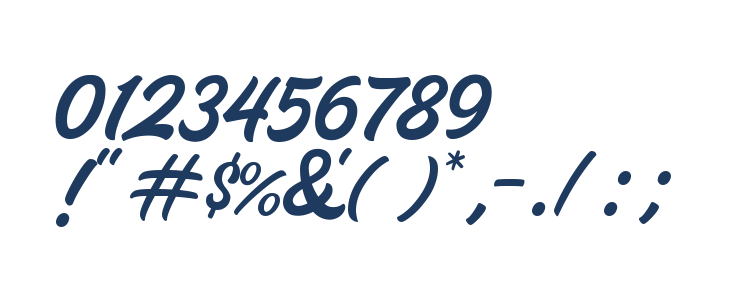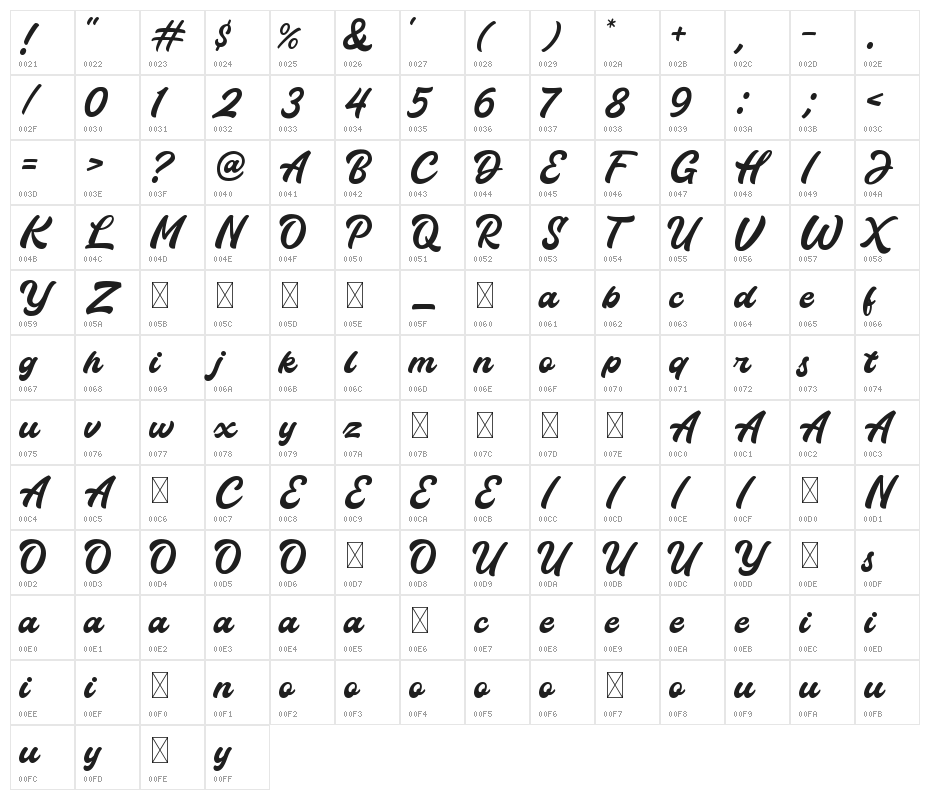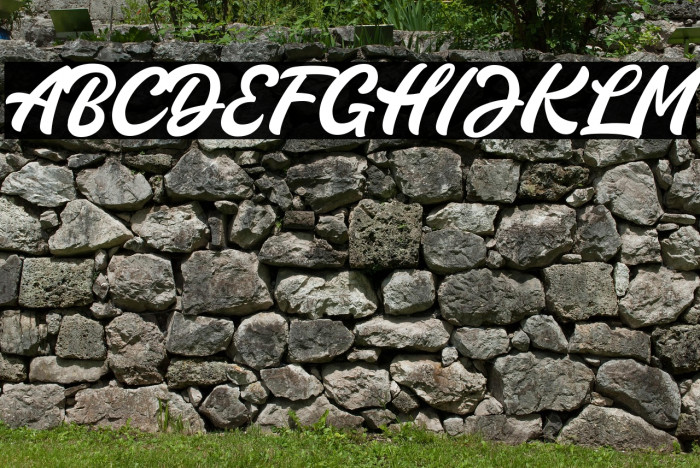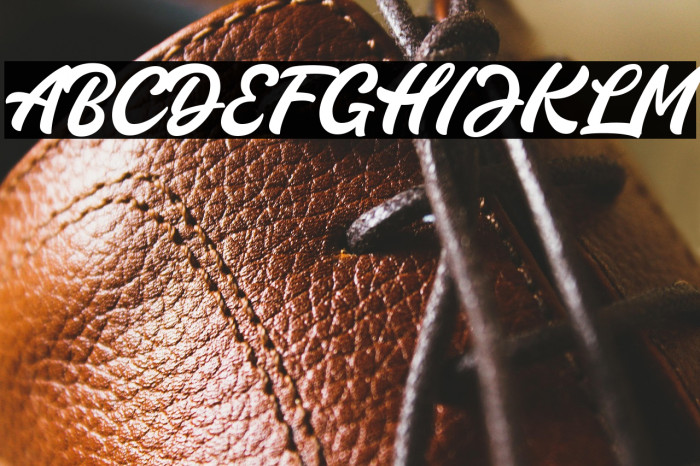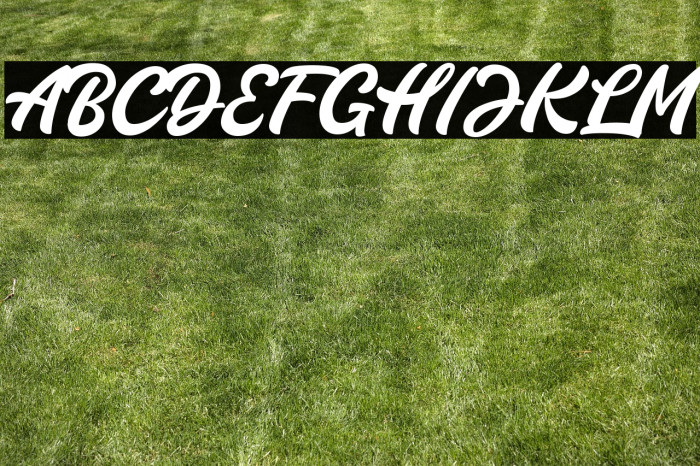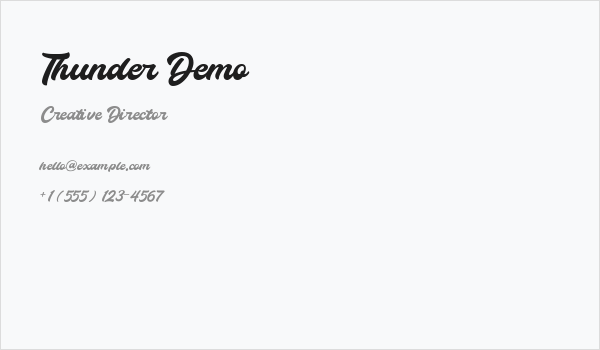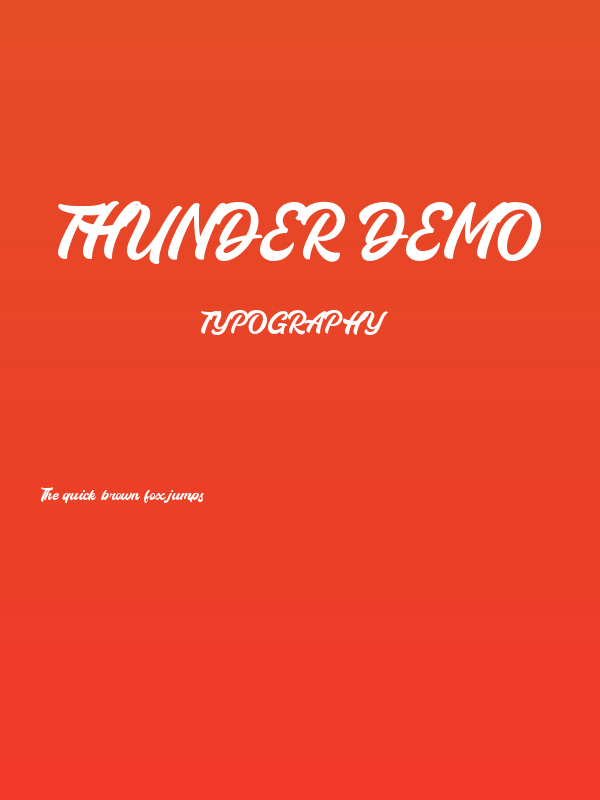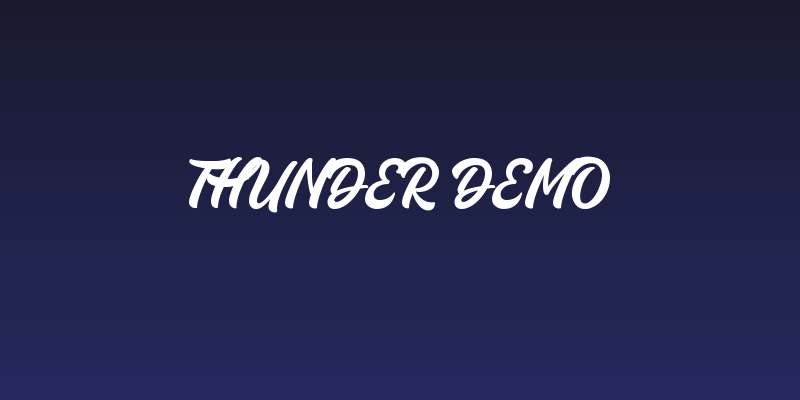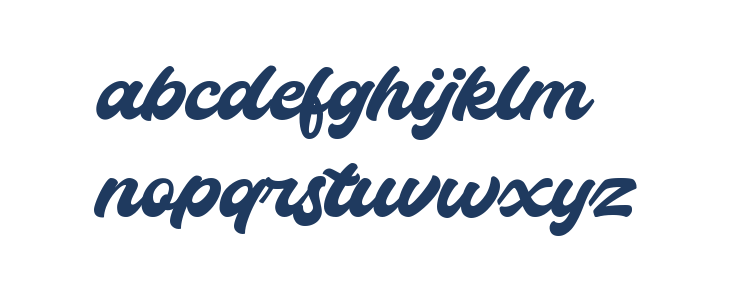
Thunder Demo Font
Thunder Demo Description
This font features a bold and dynamic script style, characterized by its flowing, cursive letterforms that convey a sense of movement and energy. The uppercase letters are particularly striking, with a slight slant and thick strokes that enhance their presence. The lowercase letters maintain a consistent style, offering a harmonious balance with the uppercase. Numbers and special characters are designed to match the overall aesthetic, ensuring a cohesive look across all text. The font's boldness and fluidity make it ideal for projects that require a touch of elegance and flair.